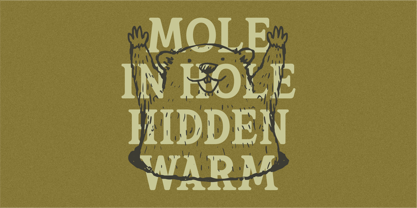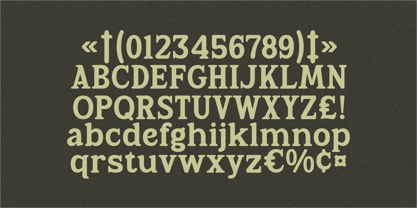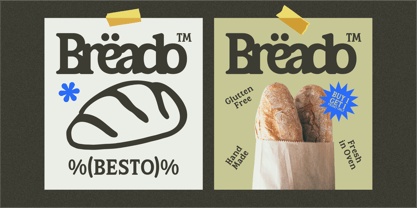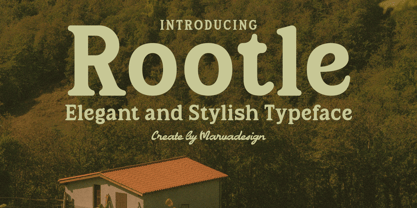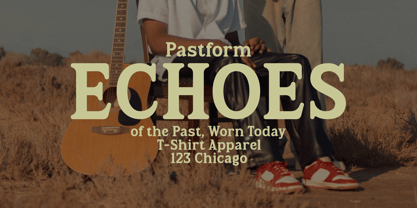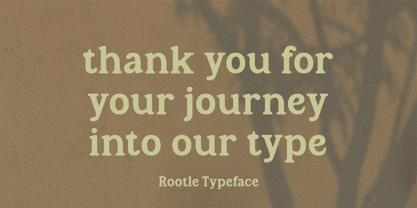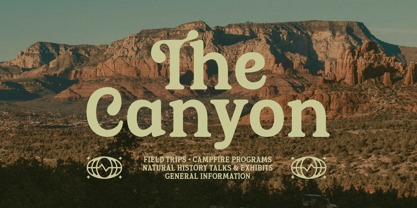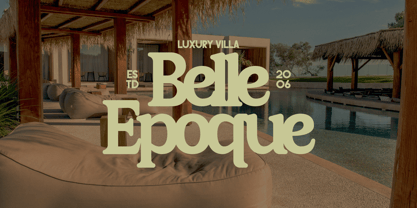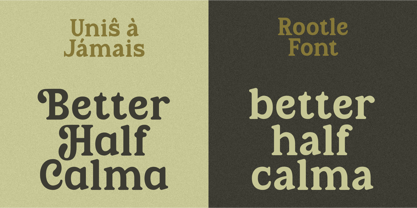
Rootle
par Marvadesign
La famille de polices Rootle a été conçue par Febrie Setiawan et publiée par Marvadesign. Rootle contient 1 styles. En savoir plus sur cette famille
Rootle is an elegant retro serif typeface that blends classic warmth with a friendly, contemporary character. It features soft, rounded serifs, generous curves, and slightly exaggerated proportions that give the letters a welcoming, handcrafted feel without losing structure or readability. The stroke contrast is gentle rather than sharp, creating a smooth visual rhythm that feels organic and calm. Rootle’s letterforms carry a nostalgic tone inspired by vintage signage, old packaging, and mid-century editorial design, yet they remain clean and versatile for modern use.
Concepteurs: Febrie Setiawan
Fonderie: Marvadesign